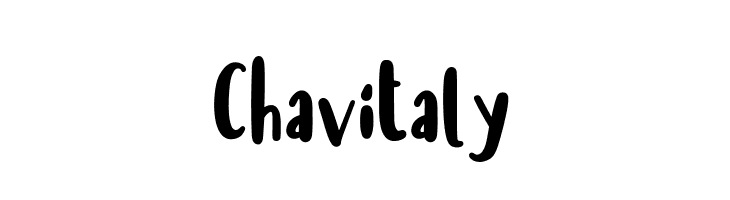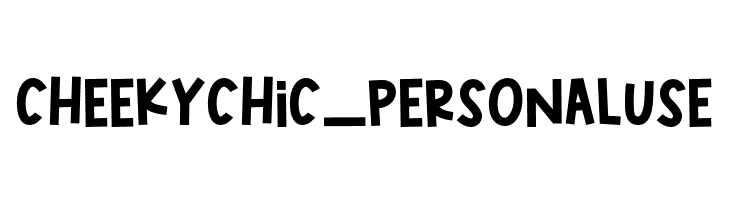
( Fonts by Subectype & Orenari )
A playful, bold handwritten font with rounded, irregular letterforms.
( Fonts by Edric Studio )
A playful, hand-drawn font with tall, narrow characters and a whimsical style.
( Fonts by Amber Nest )
A playful, bold font with rounded edges and whimsical cut-out details.
( Fonts by Jimtype Studio )
A playful, hand-drawn font with bold, quirky characters.
A playful, bold, and rounded font with a hand-drawn, whimsical style.
( Fonts by Kurnia Setyadi )
A bold, playful typeface with thick, rounded characters and a hand-drawn feel.
( Fonts by dcoxy )
A playful, cloud-like font with bold, rounded characters.
( Fonts by Perspectype Studio )
A playful, hand-drawn font with rounded, bold characters and a whimsical style.
( Fonts by Bangkit Tri Setiadi )
A playful, bold font with thick, rounded strokes and a whimsical style.
A bold, playful font with rounded, hand-drawn characteristics.